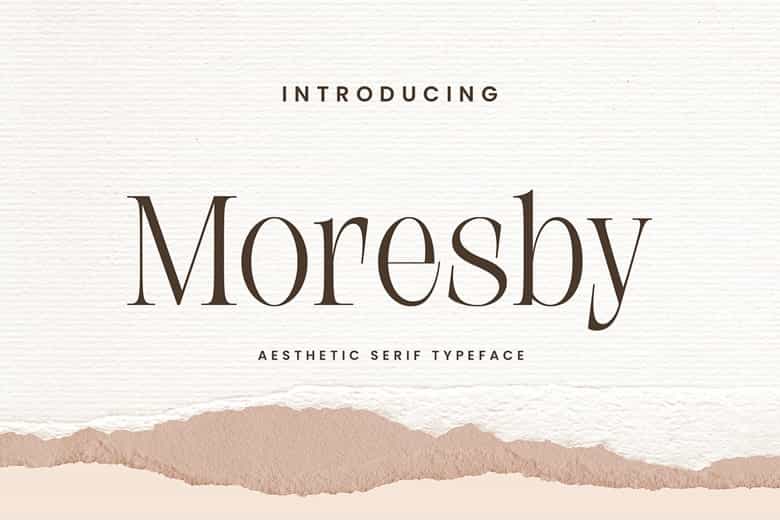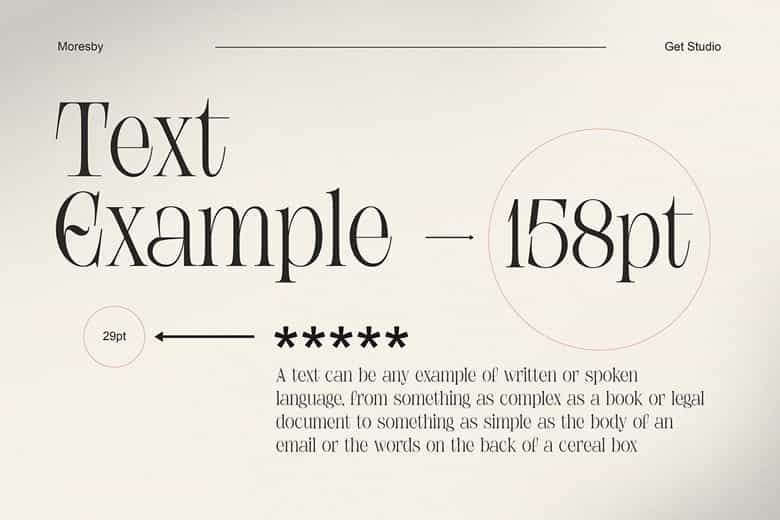
Moresby is a serif font that has a refined shape which is suitable for a modern retro design. It has the initial lower and uppercase keys, numbers, and punctuation and most of the multilingual letters. You can apply it for your logo, badge, emblem, wrap, heading, poster, T-shirt or apparel, greeting card or wedding invite.